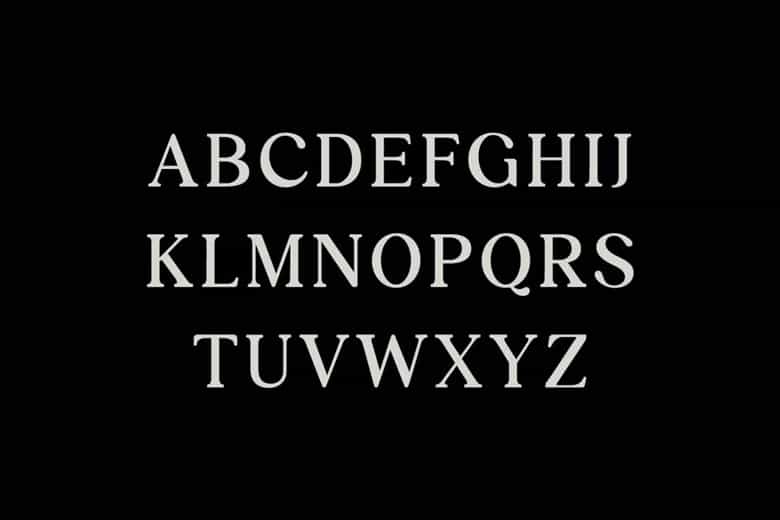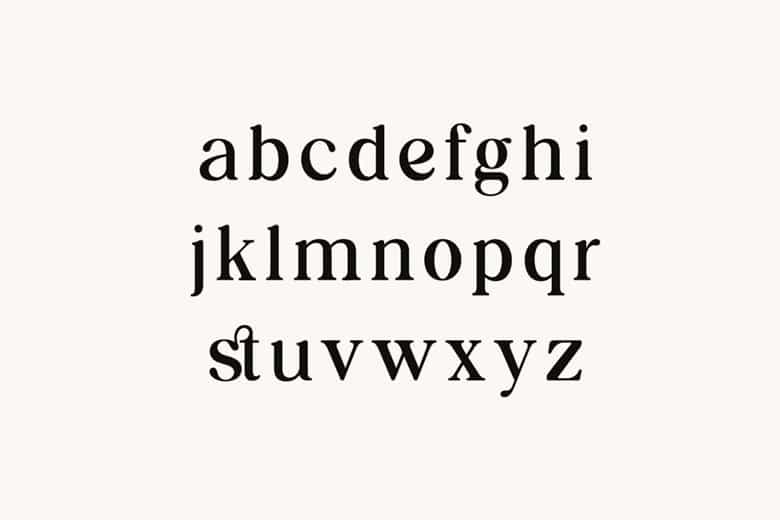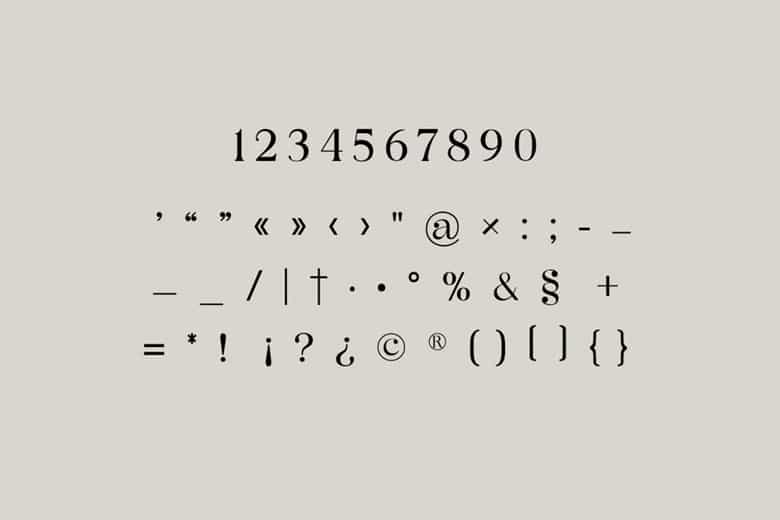
Retro Gramophone is a retro vintage serif font. It is perfect for a number of projects, signature, stationery, logo, wedding, typography quotes, magazine or book covers, website headers, branding, etc. Moreover, the fashion related branding or editorial design posses both masculinities and femininities.